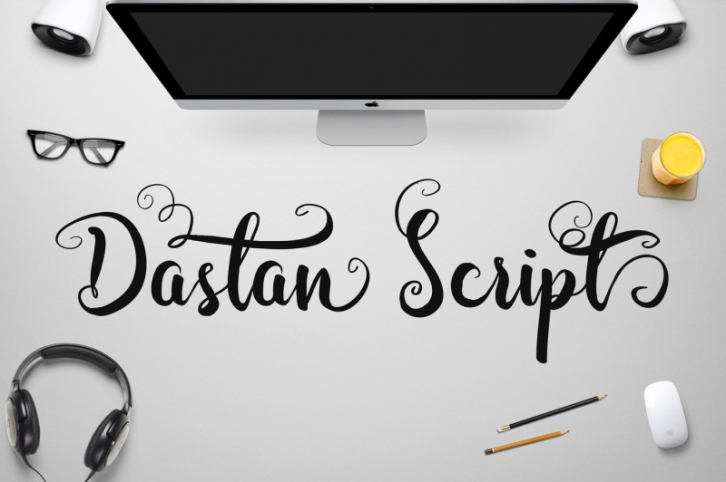
Hi, Darwinoo present my new cute and beautiful handwritten script. With many of pretty alternate characters, it will nice to make your design cute and beauty as handwriiten.
- Contain 520 glyphs and supported to basic Latin character and eastern Europe language.